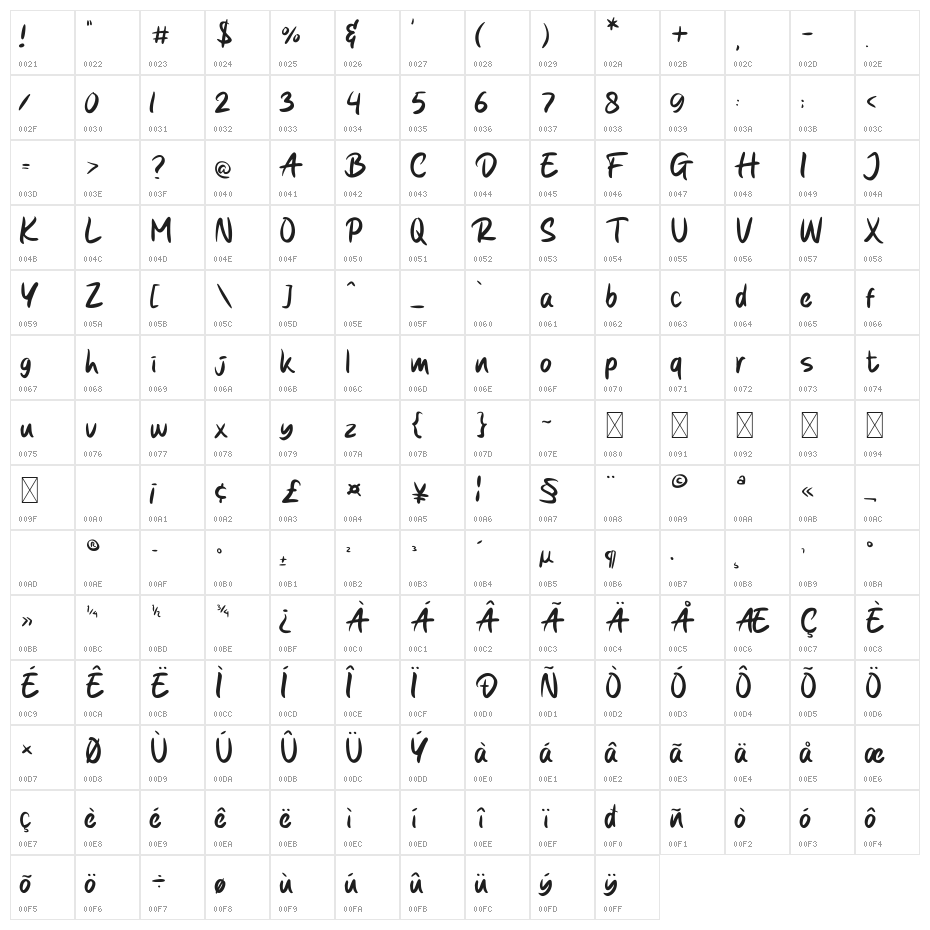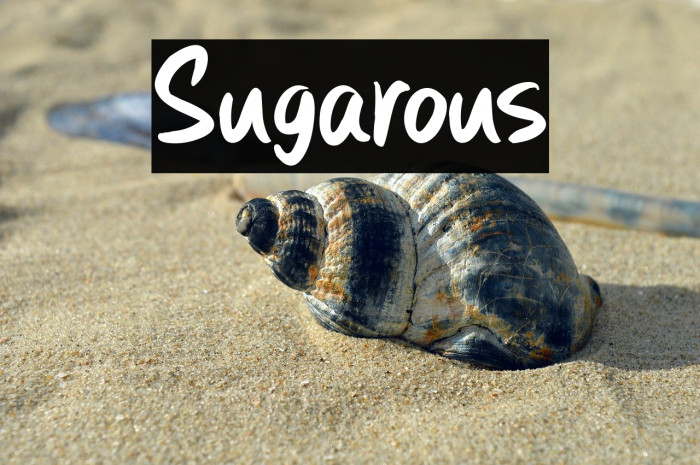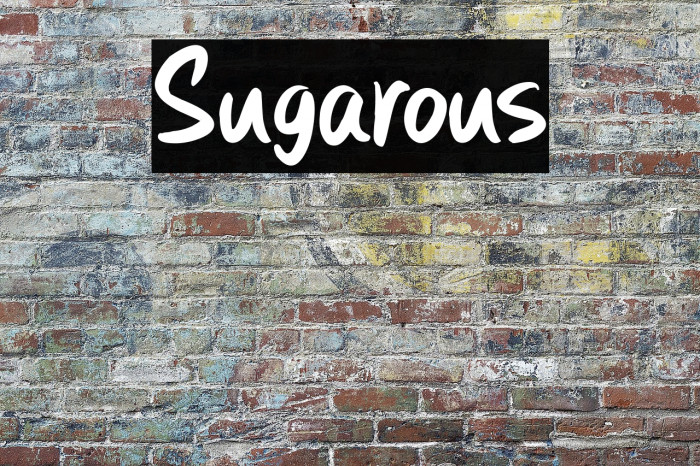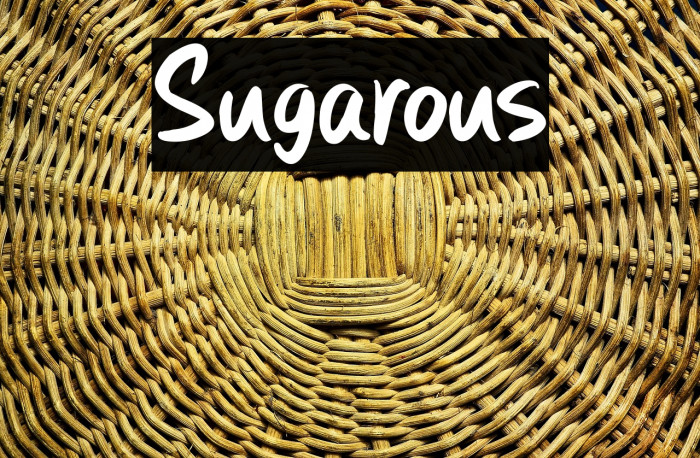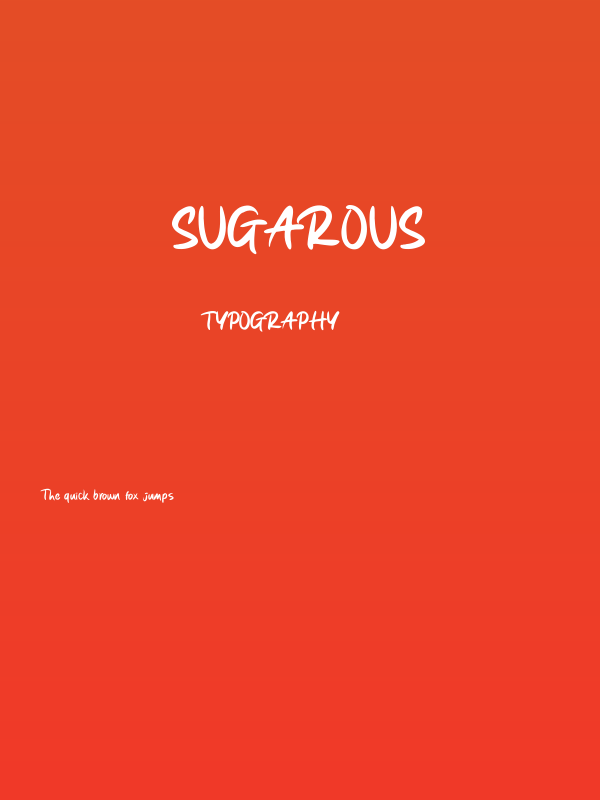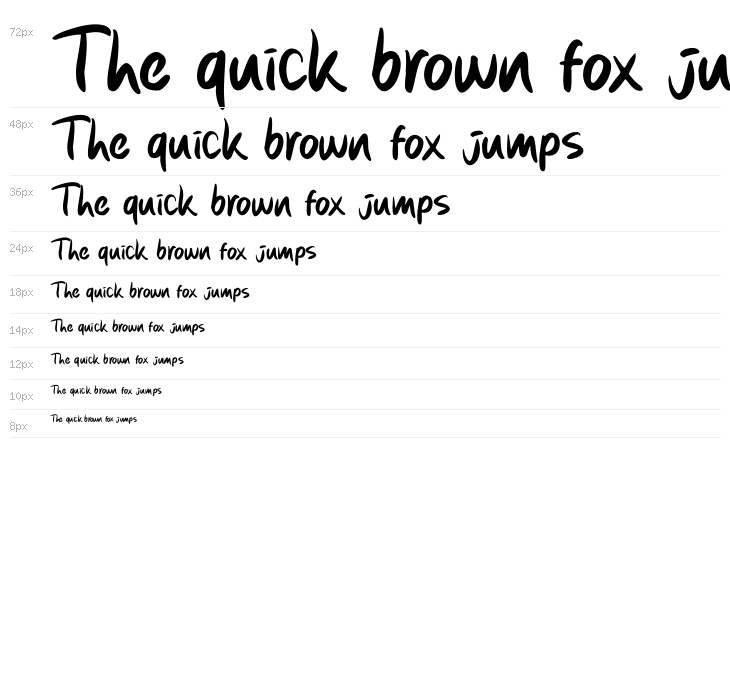
Sugarous Font
Sugarous Description
This playful and energetic font features a handwritten style with bold, sweeping strokes that convey a sense of movement and flair. The characters are slightly slanted, adding a dynamic touch to the overall appearance. The uppercase letters are bold and prominent, while the lowercase letters maintain a consistent flow, creating a harmonious balance. The numbers are equally expressive, with a lively character that matches the alphabet. Special characters are designed with the same attention to detail, ensuring a cohesive look across all elements. This font's unique style makes it ideal for projects that require a personal and informal touch.
| Proposed Projects | Ideal for greeting cards, invitations, playful branding, and social media graphics. |